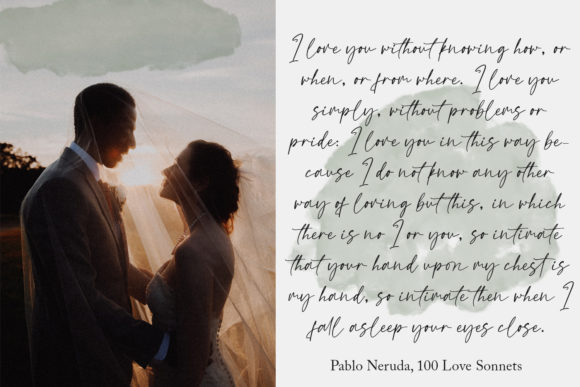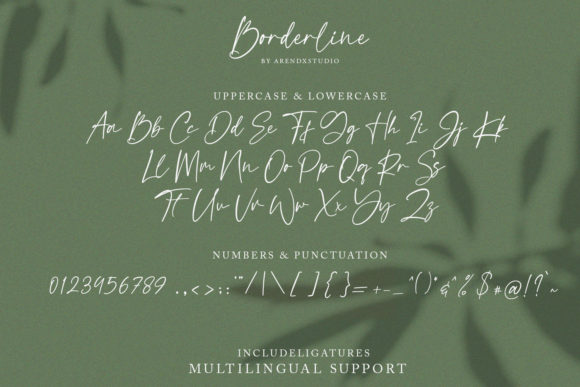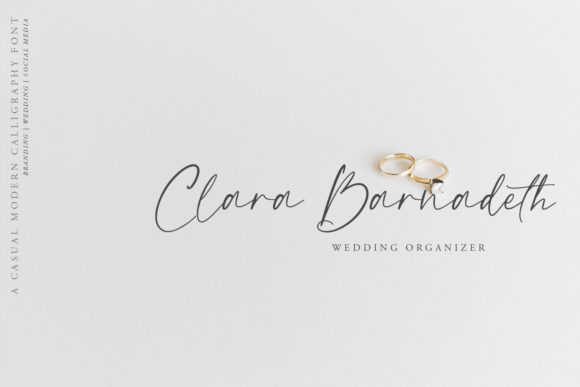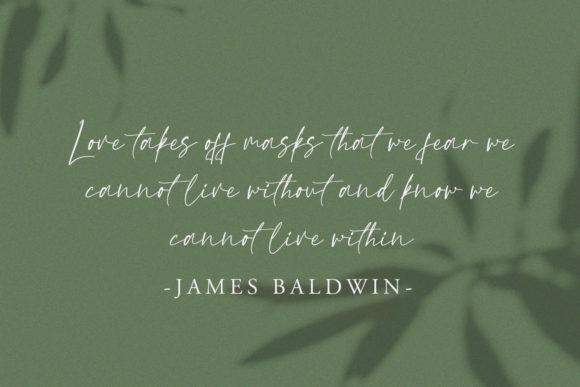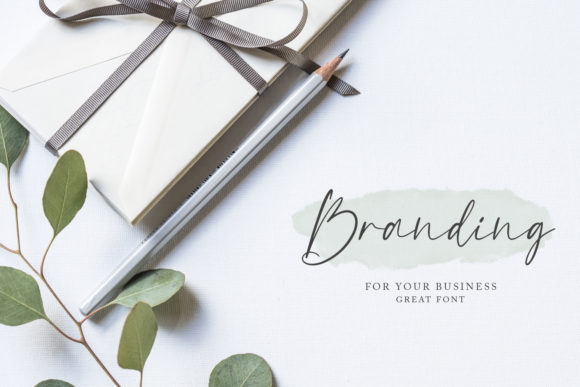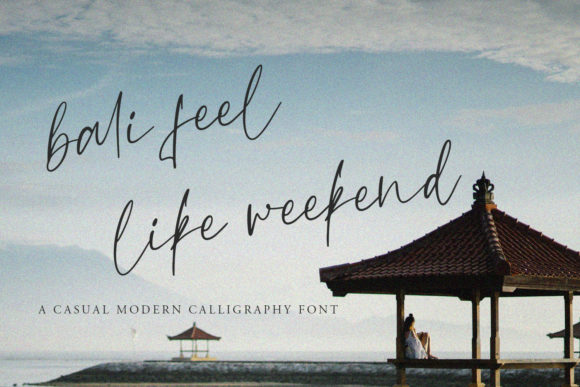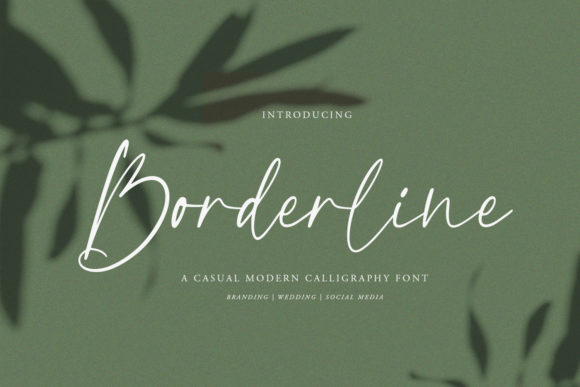
The Elusive Perfect Font: My Encounter with Borderline
I’ll never forget the frustration of scrolling through font libraries, searching for that one perfect typeface to bring my design project to life. It was for a client’s wedding invitation suite, and I needed something elegant, yet playful. The brief was simple: make it beautiful, make it memorable. But, as any designer knows, finding the right font can be like looking for a needle in a haystack. That’s when I stumbled upon Borderline, a stunning handwritten font that felt like a breath of fresh air.
A First Impression: Elegance and Charm
Borderline feels equally charming and elegant. This beautiful font is a stylish homage to classic calligraphy, featuring a varying baseline, smooth lines, gorgeous glyphs, and stunning alternates. It’s like a masterclass in elegance, with a dash of whimsy. Whether you’re working on wedding stationery, branding, or just a fun craft project, Borderline has the potential to elevate your design.
- ✨ Elegant and charming, perfect for projects that need a touch of sophistication
- ✅ Highly versatile, suitable for a wide range of design projects
- 💫 Beautifully crafted glyphs and alternates that add a unique touch
- ⚡️ Easy to read, despite its elegant nature
While Borderline is an exceptional font, there are a few things to keep in mind:
- 🤔 It can be a bit overused, so make sure to pair it with other fonts or use it in a way that feels fresh
- ⚠️ Some of the more intricate alternates can be tricky to use, especially for beginners
The Story Behind Borderline: Designer Inspiration
Borderline was created with the intention of capturing the essence of classic calligraphy, while still feeling modern and fresh. The designer wanted to create a font that would be both elegant and charming, suitable for a wide range of design projects. With its beautiful glyphs and alternates, Borderline is a true masterpiece.
| Font Name | Borderline Font |
| Author | Arendxstudio |
Q: What type of projects is Borderline best suited for?
A: Borderline is highly versatile and can be used for a wide range of projects, including weddings, branding, and creative hobbies.
Q: Is Borderline easy to read?
A: Yes, despite its elegant nature, Borderline is surprisingly easy to read, making it suitable for body text and headlines.
Q: Can I use Borderline with other fonts?
A: Absolutely! Borderline pairs well with a variety of fonts, so feel free to experiment and find the perfect combination for your project.